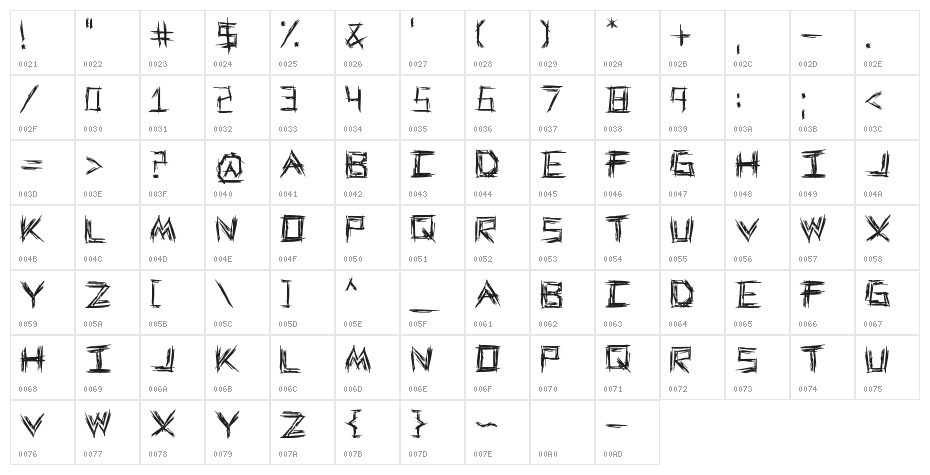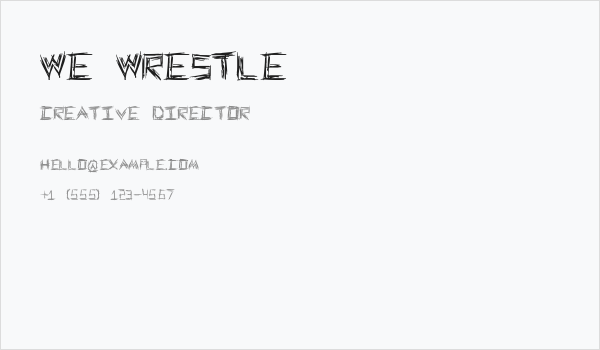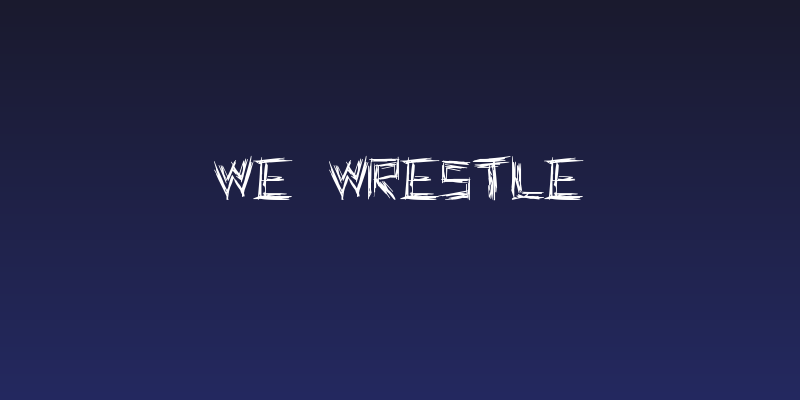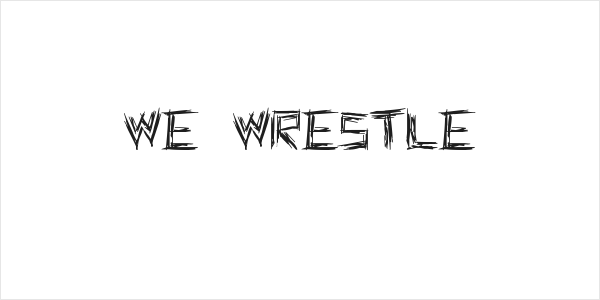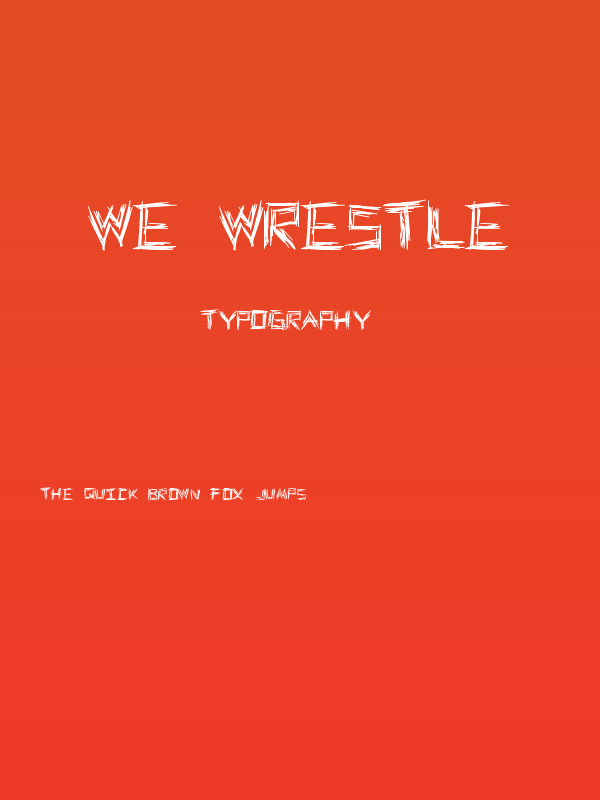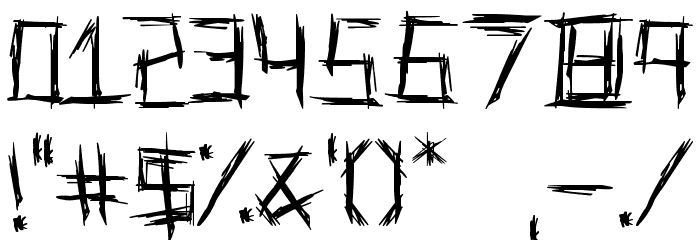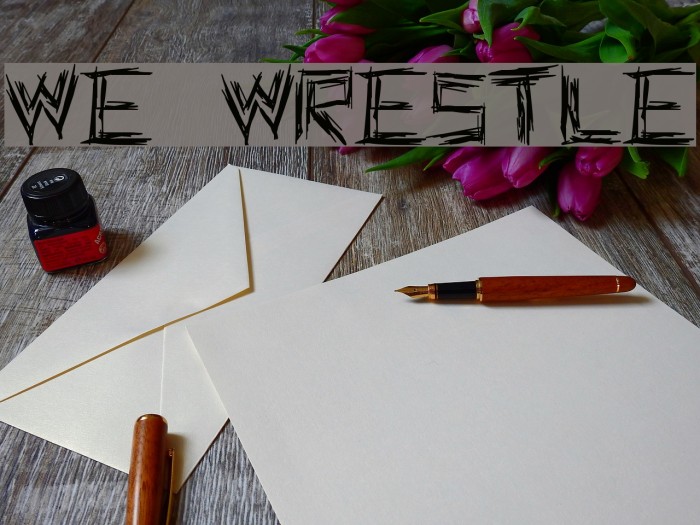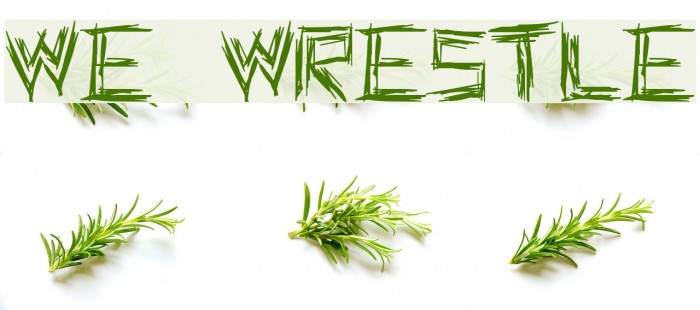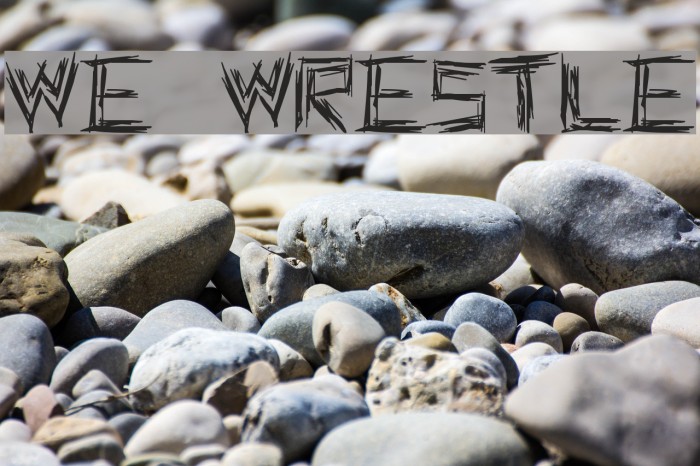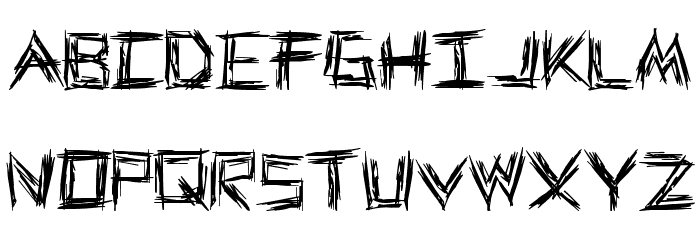
WE WRESTLE Font
WE WRESTLE Description
This font features a rugged, distressed appearance with jagged edges and an irregular, hand-drawn style. The characters are bold and impactful, with a chaotic aesthetic that suggests movement and energy. Each letter and number is uniquely crafted, giving the font a dynamic and unpredictable feel. The strokes vary in thickness, adding to the overall rough and edgy look. This font is ideal for projects that require a raw, intense visual impact, such as music album covers, posters, or any design that aims to convey a sense of rebellion or nonconformity.
| Proposed Projects | Ideal for music album covers, edgy posters, rebellious branding, or any design needing a raw, intense impact. |